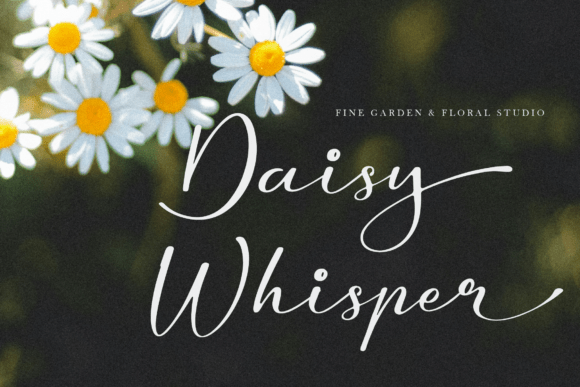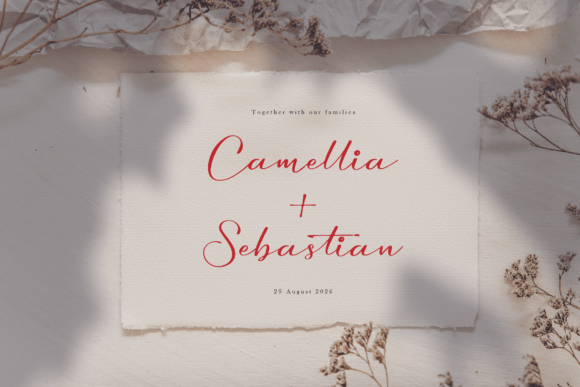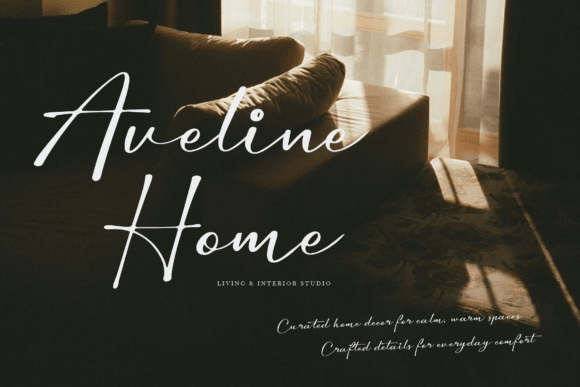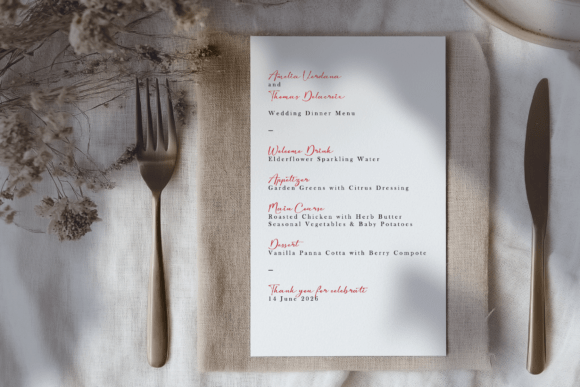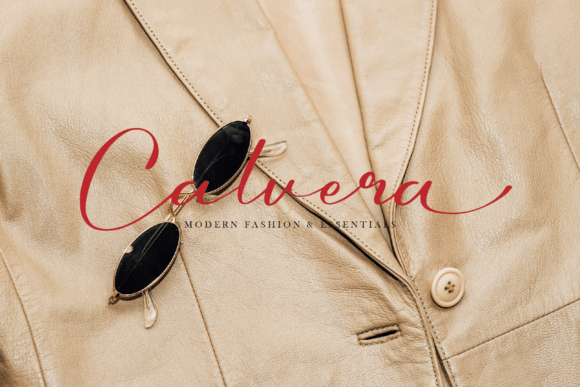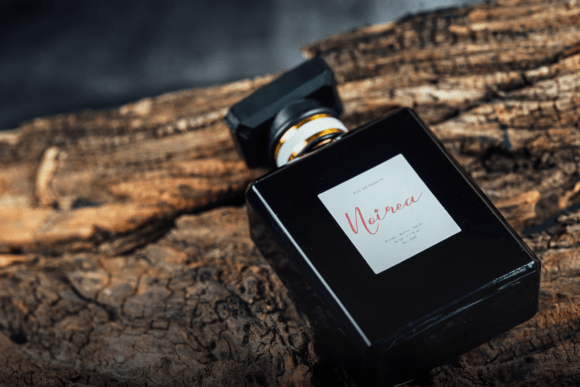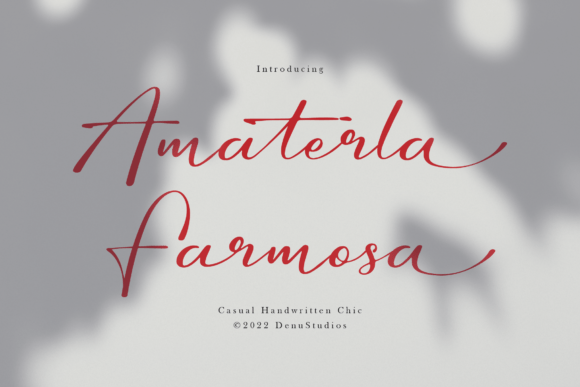
Introducing Amaterla Farmosa: Elevate Your Designs with Casual Handwritten Chic
In the world of typography, the right font can make all the difference in transforming a design from ordinary to extraordinary. For those seeking a touch of casual elegance and handwritten charm, Amaterla Farmosa emerges as a standout choice. This beautiful script font, crafted by Denustudios, is not just a typeface but a versatile design element that can breathe life into a myriad of projects.
Amaterla Farmosa: A Glimpse into its Charm
Amaterla Farmosa is a script font that embodies the essence of casual handwritten chic. Its fluid strokes and elegant letterforms make it an ideal choice for designers and crafters looking to infuse a personal and approachable feel into their creations. Whether you’re working on logos, branding projects, homeware designs, product packaging, or a host of other visual endeavors, Amaterla Farmosa promises to add a distinctive touch that sets your work apart.
One of the key advantages of Amaterla Farmosa is its incredible versatility. This font is not limited to a specific genre of design; rather, it can be seamlessly integrated into a wide array of projects. Here are some ideas to get you started:
- Logos and Branding Projects: Create a memorable brand identity with a logo that exudes warmth and approachability.
- Homeware Designs: Add a personal touch to your home decor products with a font that feels both modern and timeless.
- Product Packaging: Stand out on the shelves with packaging that boasts elegant and eye-catching typography.
- Mugs, T-shirts, and Merchandise: Perfect for designing personalized gifts or merchandise that carry a unique charm.
- Quotations, Posters, and Advertising: Make your message heard with stylish and clear typography.
- Shopping Bags, Invitation Cards, and Greeting Cards: Elevate your stationery and promotional materials with a touch of sophistication.
- Labels and Photography Watermarks: Use Amaterla Farmosa to add a professional yet creative flair to your work.
- Character Alternates: Offers a range of alternate characters for varied design options.
Why Choose Amaterla Farmosa?
Choosing Amaterla Farmosa for your design projects comes with numerous benefits:
- Unique Aesthetic: Offers a distinctive look that can set your designs apart.
- High Versatility: Suitable for a wide range of projects, from digital to print.
Amaterla Farmosa by Denustudios is more than just a font; it’s a creative tool designed to bring a touch of elegance and personality to your designs. With its casual handwritten style, versatility, and user-friendly features like PUA encoding, it’s an excellent choice for designers and crafters looking to elevate their projects. Whether you’re aiming to create visually stunning branding, captivating packaging, or heartfelt greeting cards, Amaterla Farmosa is your partner in bringing those visions to life.
Embrace the beauty of Amaterla Farmosa in your next project and discover how this elegant script font can transform your designs with its unique charm and character.